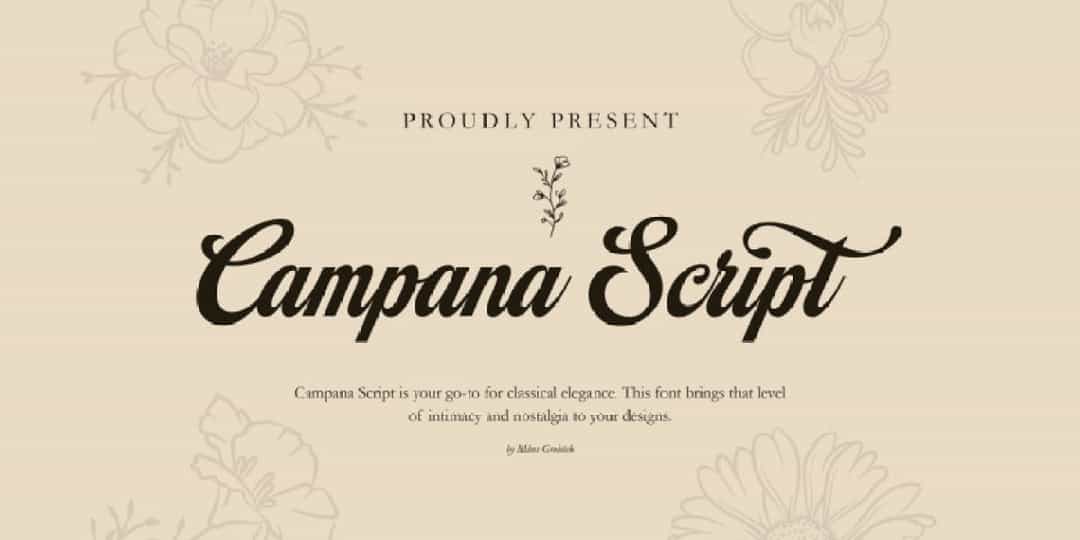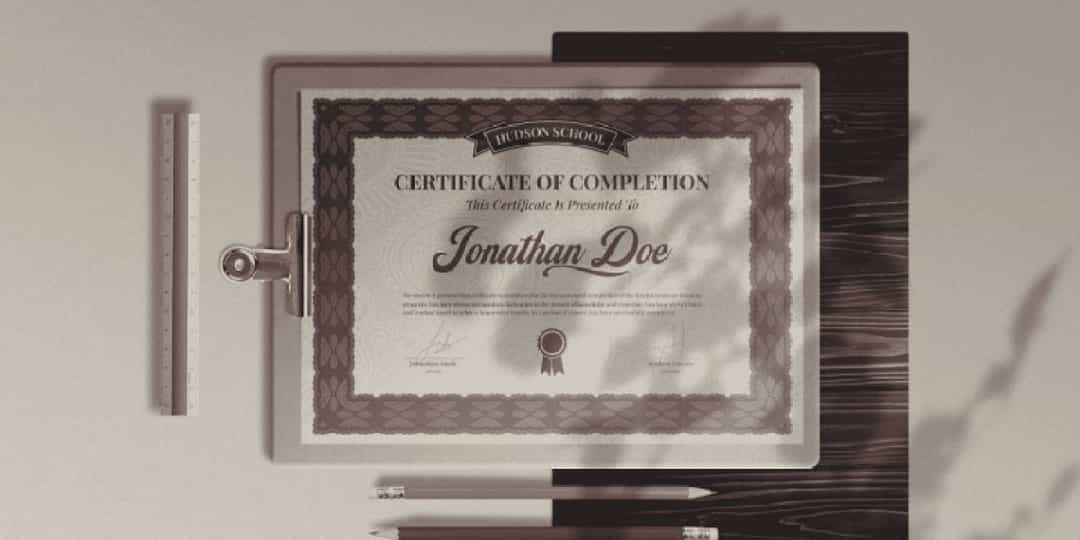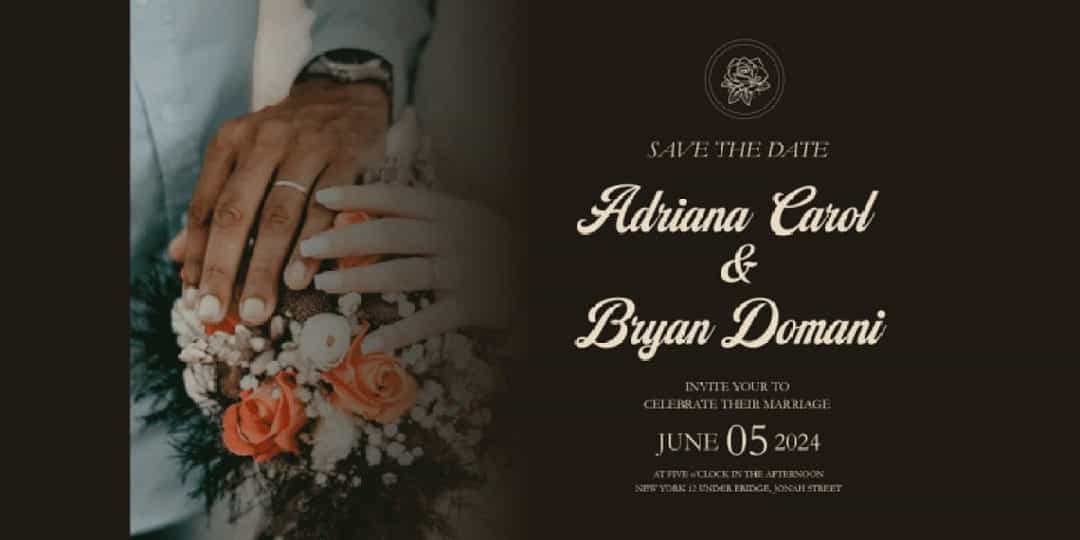
Campana script font is your go-to option for timeless elegance and classic style. Imagine entering an antique bookshop and discovering love letters written out by hand that have lingered for years in one particular book… This font brings that nostalgic yet intimate feeling right into your designs with its heavy line and intricate washes, making Campana script ideal for formal projects such as ceremony invitations, certificate designs and classic logotypes.